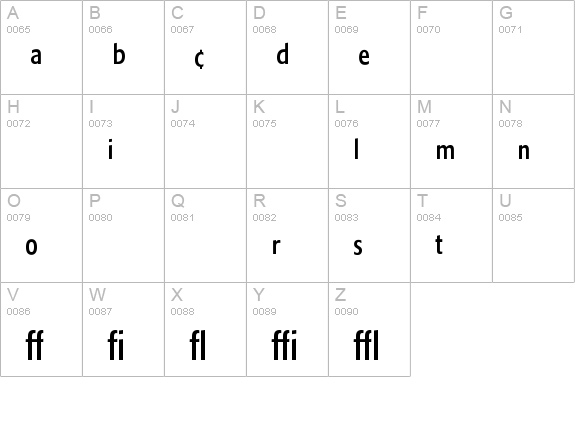
Formata Condensed Expert is a distinctive, condensed-width variant in the Formata typeface family \xE2\x80\x94 well suited to design and typography projects.
Formata Condensed Expert font is a sleek and modern typeface that exudes sophistication and professionalism. With its condensed design, this font is perfect for creating a sleek and contemporary look in various design projects. The sharp edges and clean lines of Formata Condensed Expert make it an ideal choice for headings, titles, and other display purposes. What makes Formata Condensed Expert even more appealing is that it is available for free download at FontsMarket.com. This means that you can easily access this stylish font and use it in your projects without any cost. Whether you are working on branding materials, website design, or any other creative project, Formata Condensed Expert is a versatile font that will elevate your designs to the next level. Download it today and add a touch of elegance to your work!